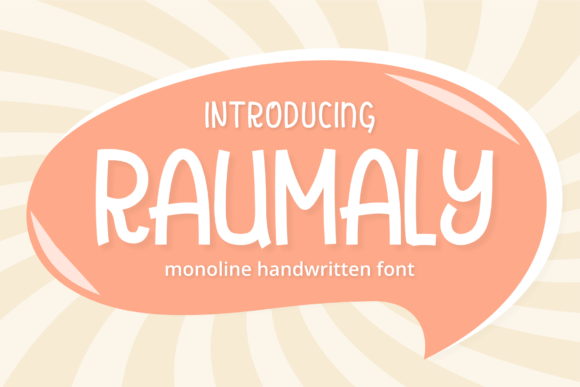
**Introducing Raumaly Font: Your Ticket to Eye-Catching, Captivating Creations**
Step into the realm of visual enchantment with Raumaly Font, where every letter dances with charm and personality. Crafted by the masters at Mabhal Studio, this display font is a testament to creativity and style.
Imagine your words transformed into a captivating symphony of curves, strokes, and swashes. Raumaly's playful nature breathes life into your designs, adding a touch of whimsy and warmth. Whether you're weaving tales on social media, crafting logos that leave a lasting impression, or simply adding a dash of flair to your DIY projects, this font will ignite your imagination and make your creations shine.
Every glyph in the Raumaly Font family is a masterpiece, meticulously designed to evoke emotions and convey messages with unparalleled clarity. Its rounded edges and playful contours create a sense of approachability and friendliness, making it perfect for designs that aim to connect with audiences on a personal level.
But don't let its charming exterior fool you - Raumaly Font is also a powerhouse of versatility. Its sturdy construction and legible forms ensure that your designs remain impactful even when scaled up or down. Whether you're creating eye-catching headlines, captivating posters, or designing merchandise that's sure to turn heads, Raumaly Font has got you covered.